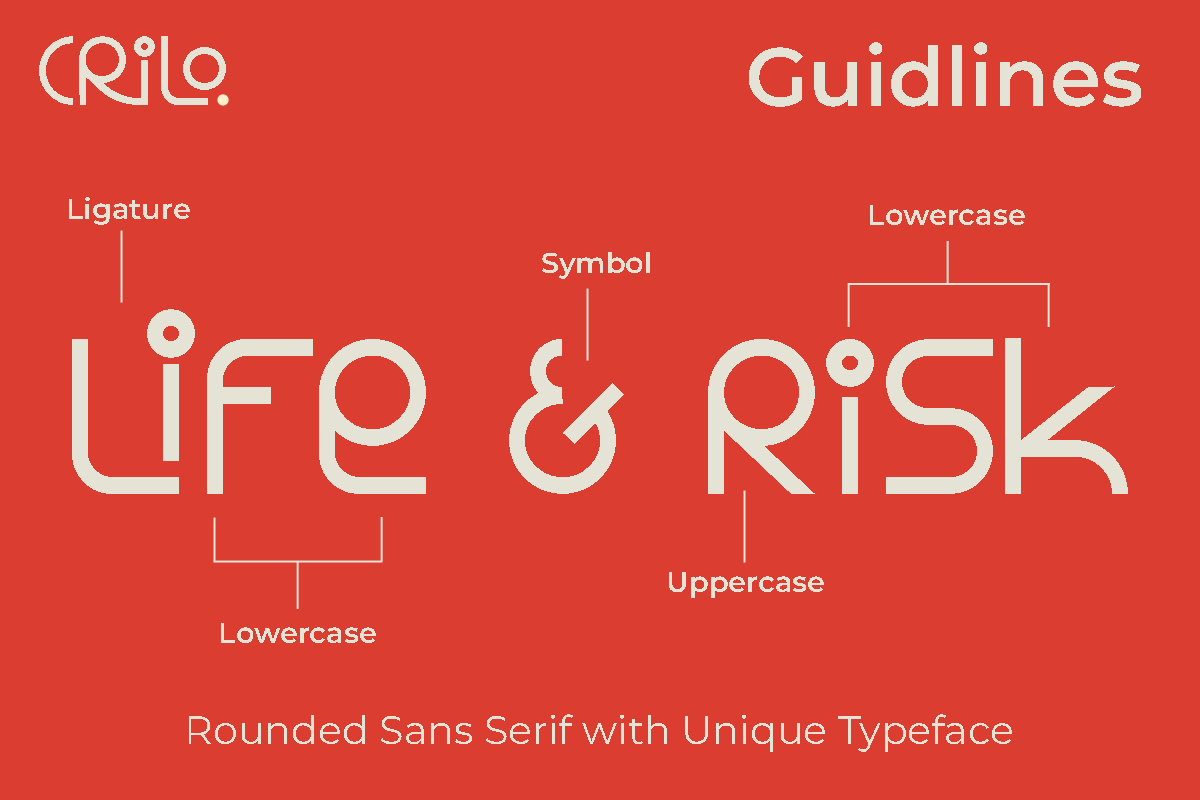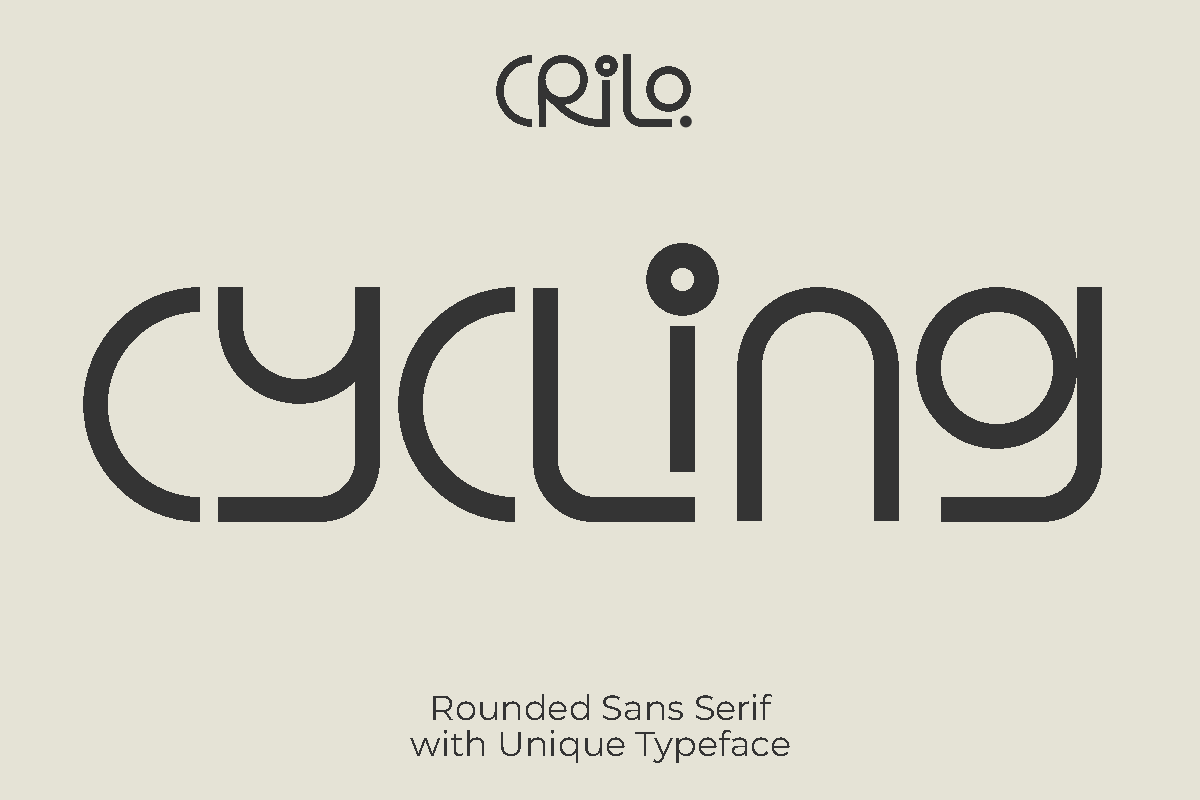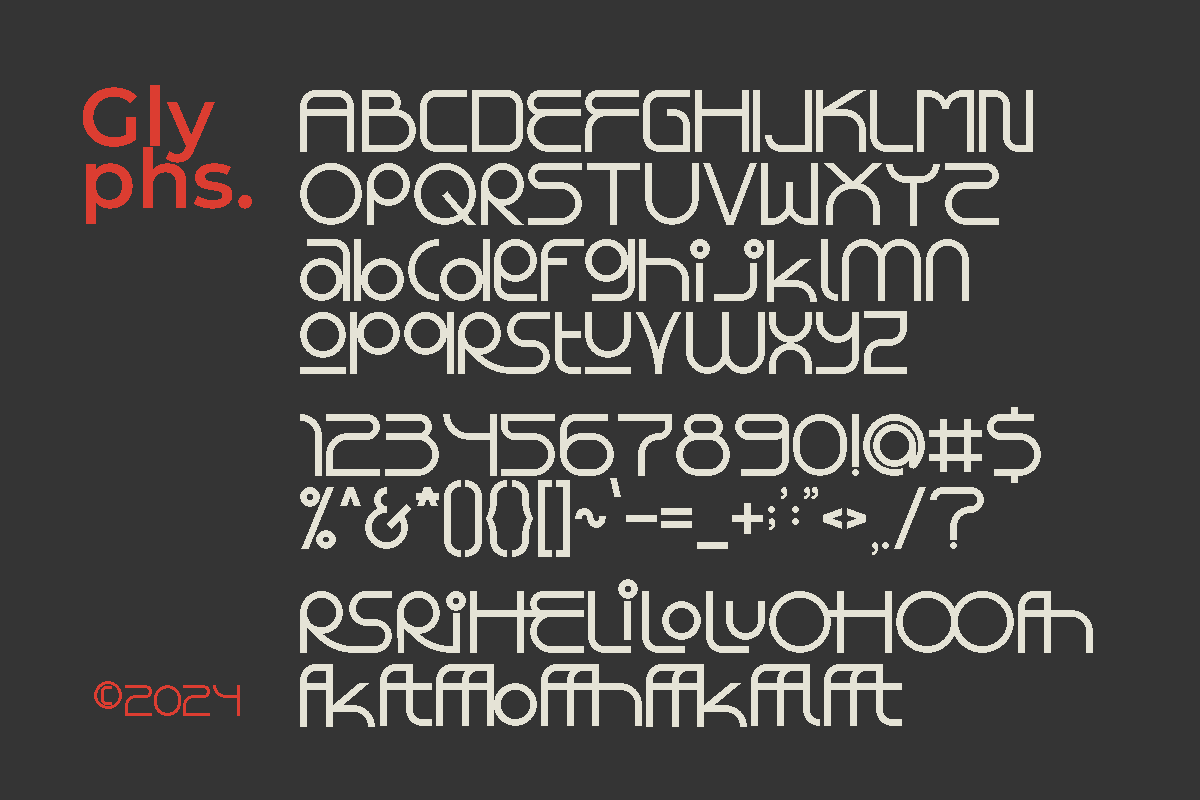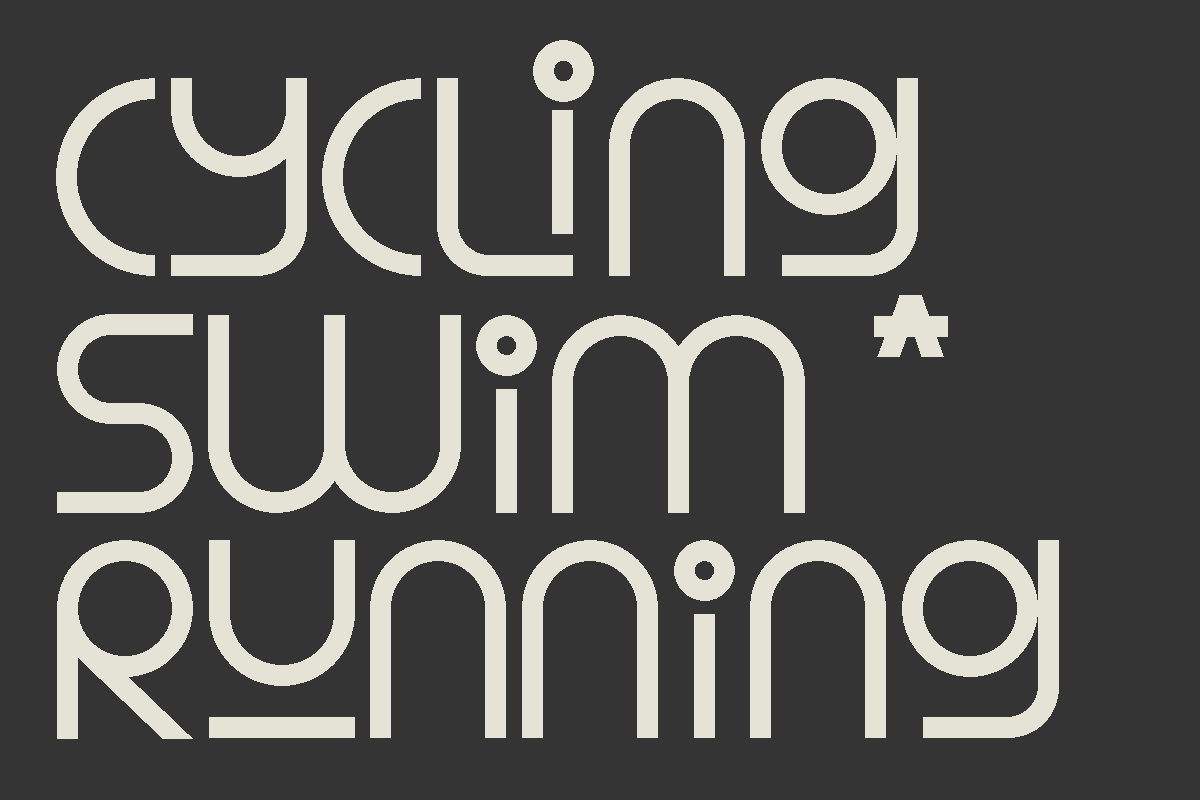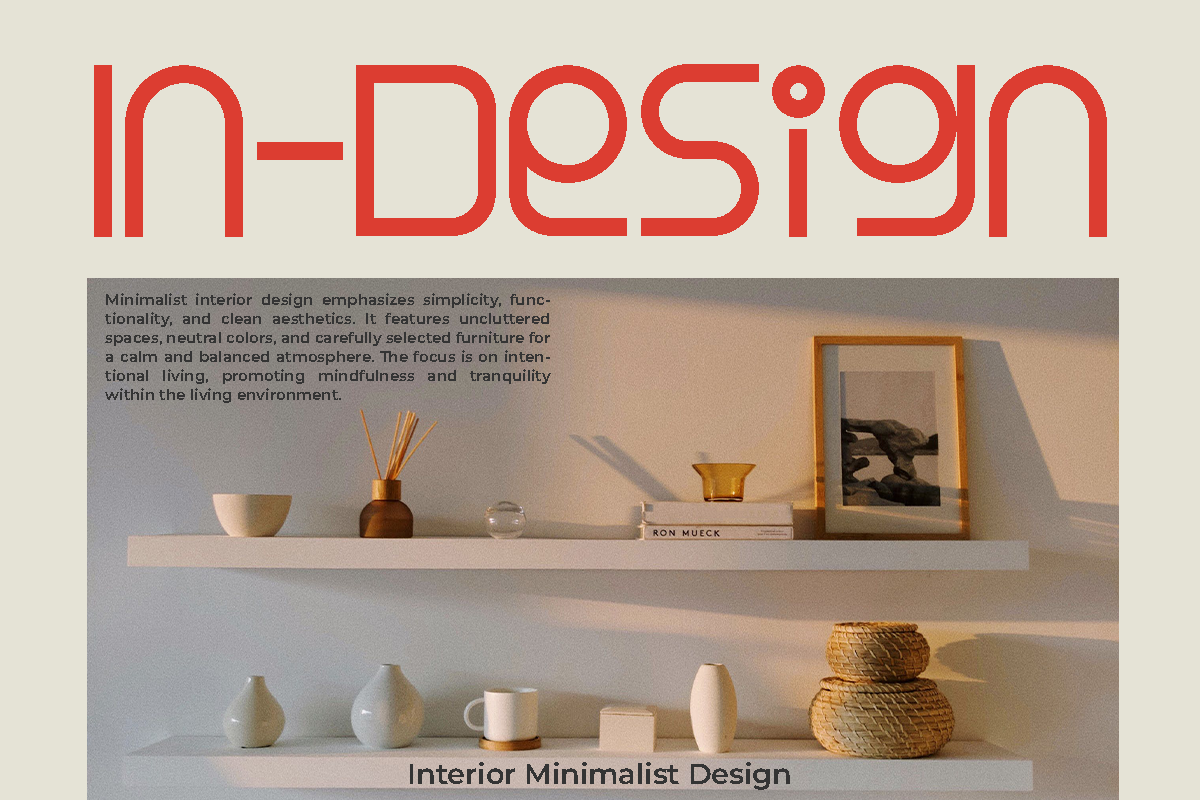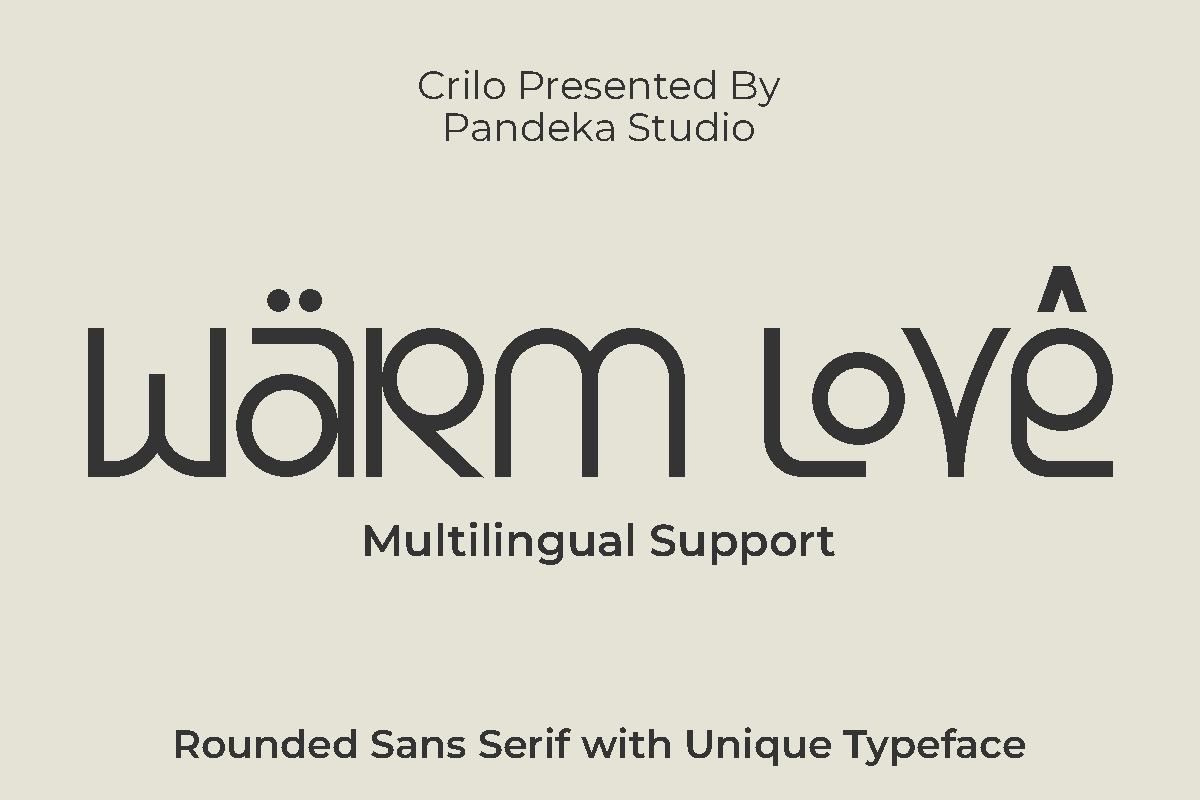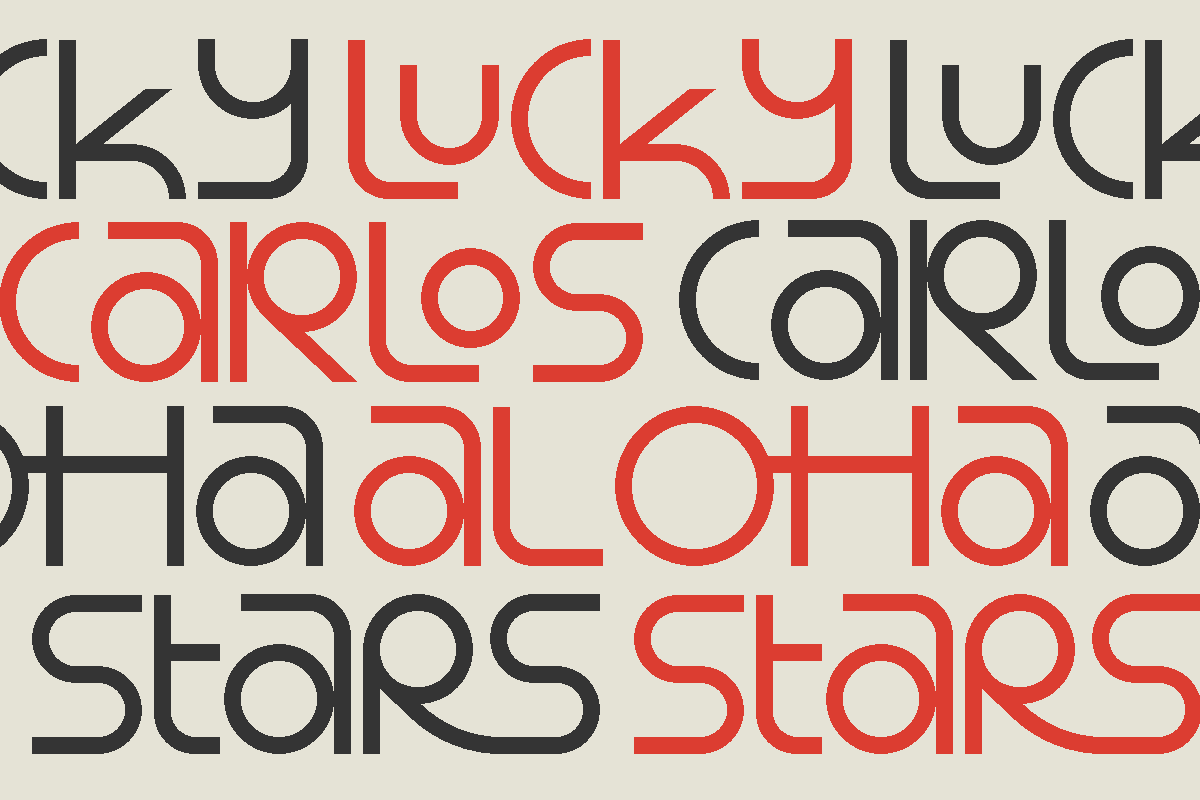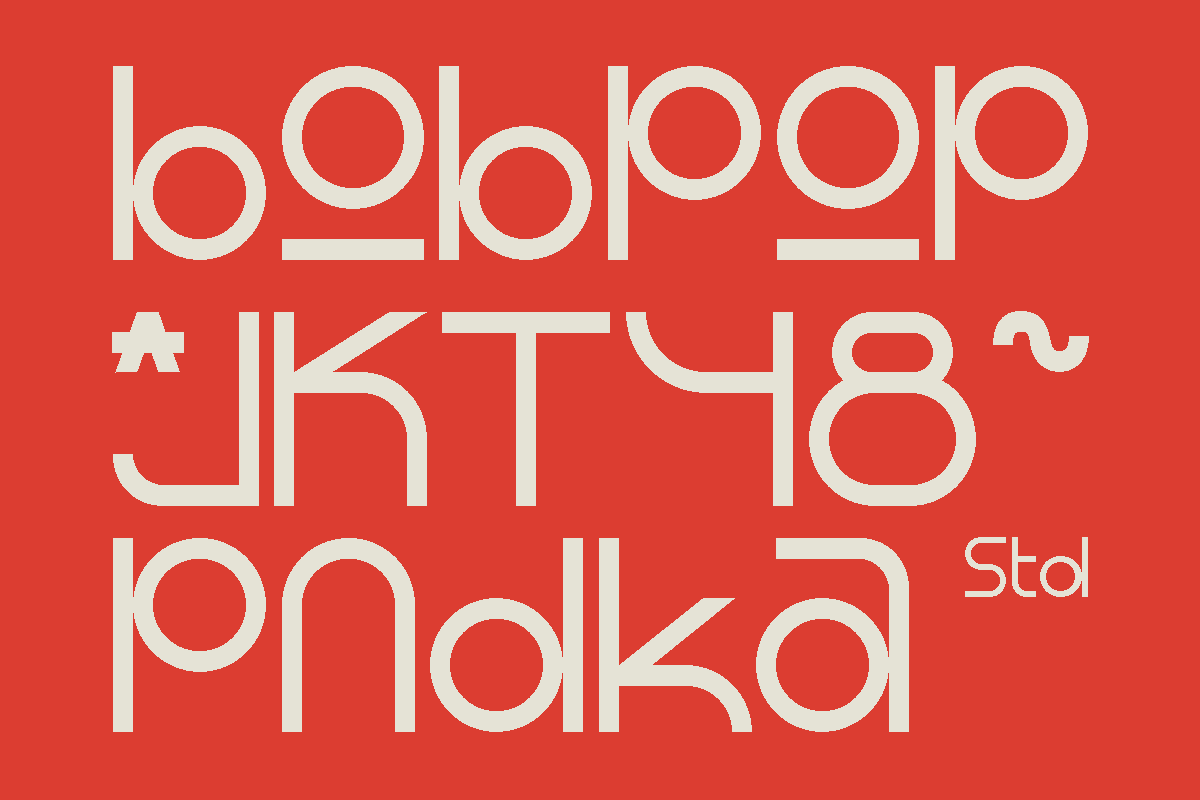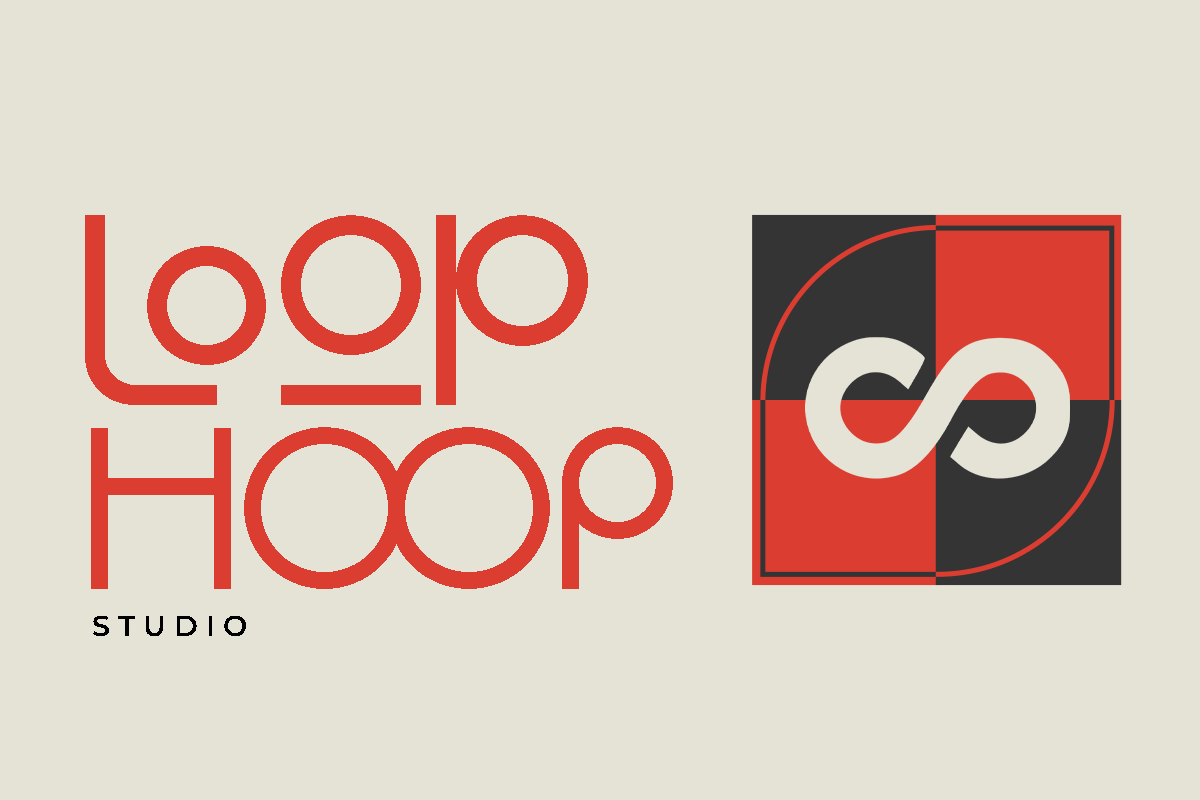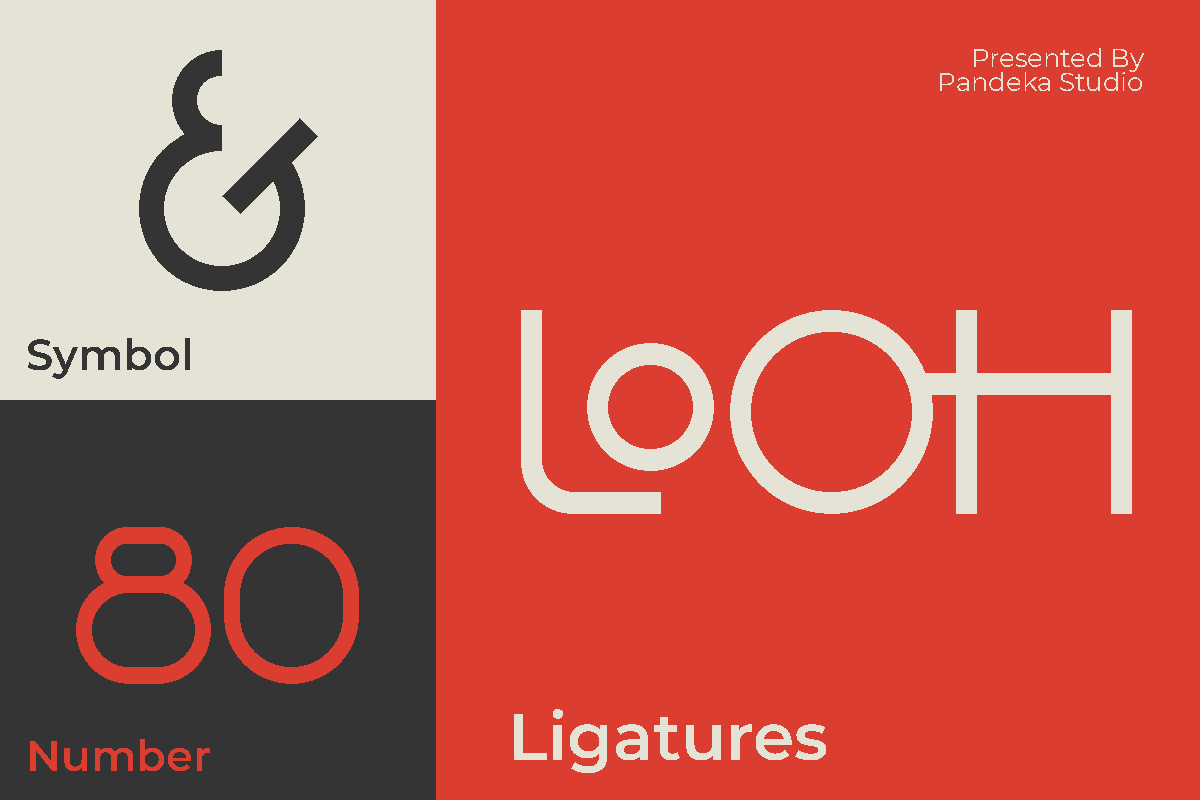
Crilo - Playful Logo Sans
Presenting our new playful sans serif, Crilo!
Crilo is modern fashion and unique gylph font, every single letters have been carefully crafted to make your text looks unique.
- Language Support: Danish, English, Estonian, Filipino, Finnish, French, Friulian, Galician, German, Gusii, Indonesian, Irish, Italian, Luxembourgish, Norwegian Bokmål, Norwegian Nynorsk, Nyankole, Oromo, Portuguese, Romansh, Rombo, Spanish, Swedish, Swiss-German, Uzbek (Latin)